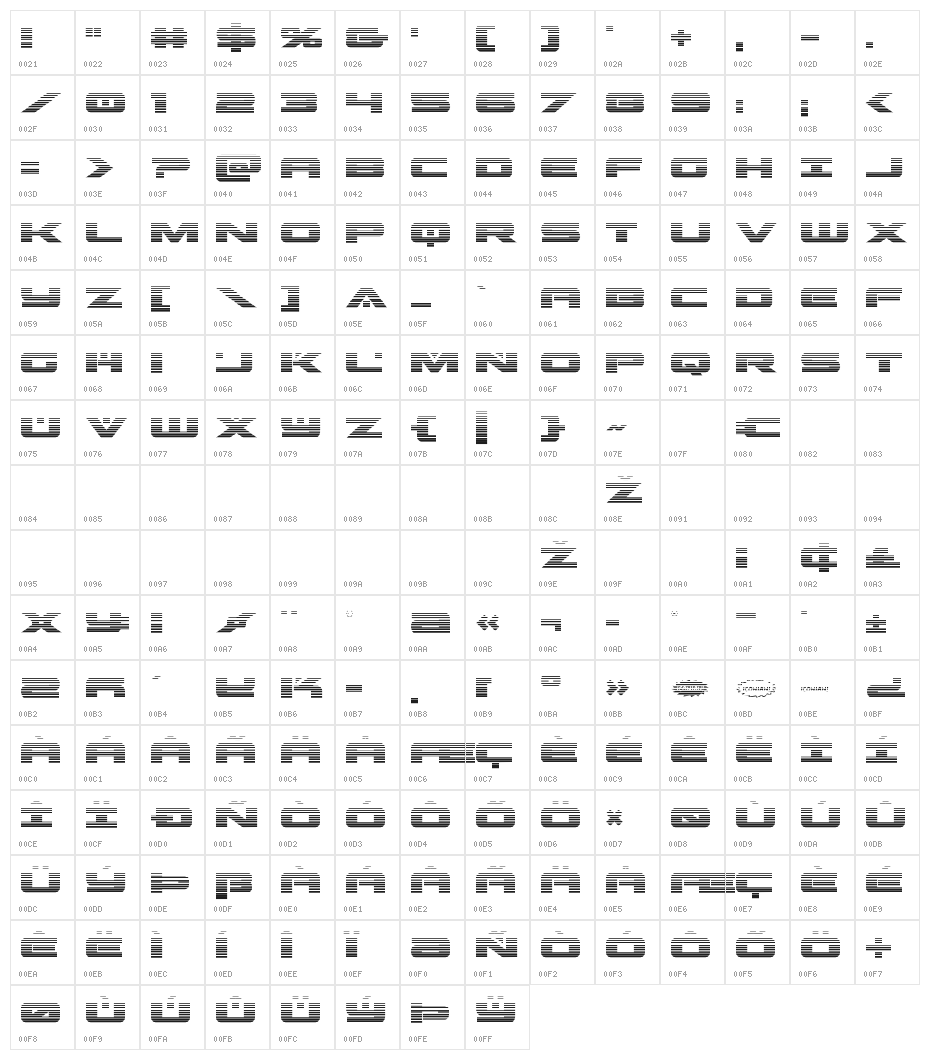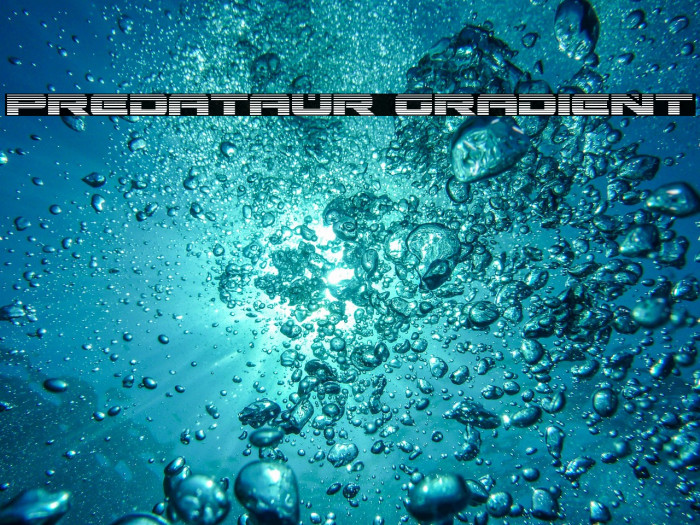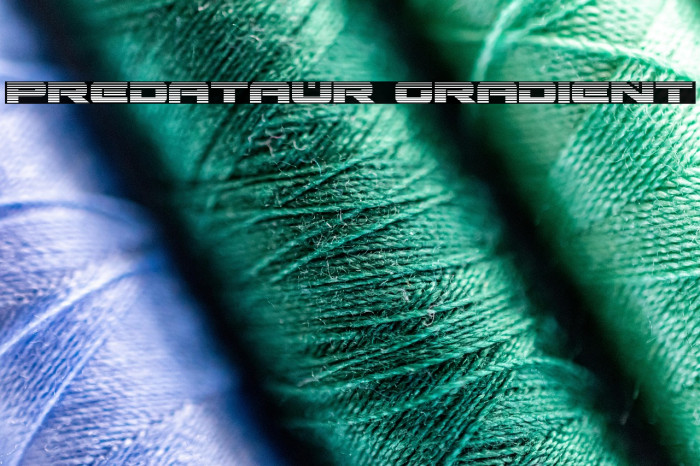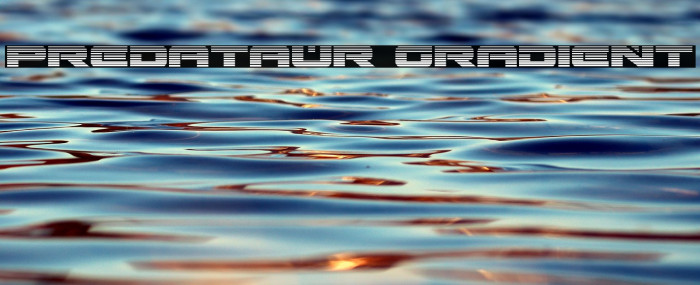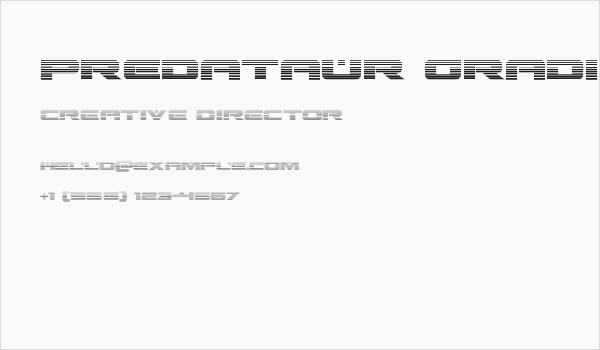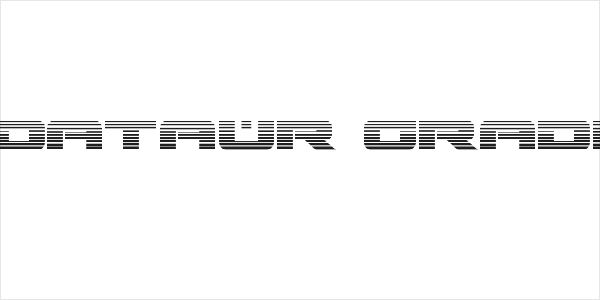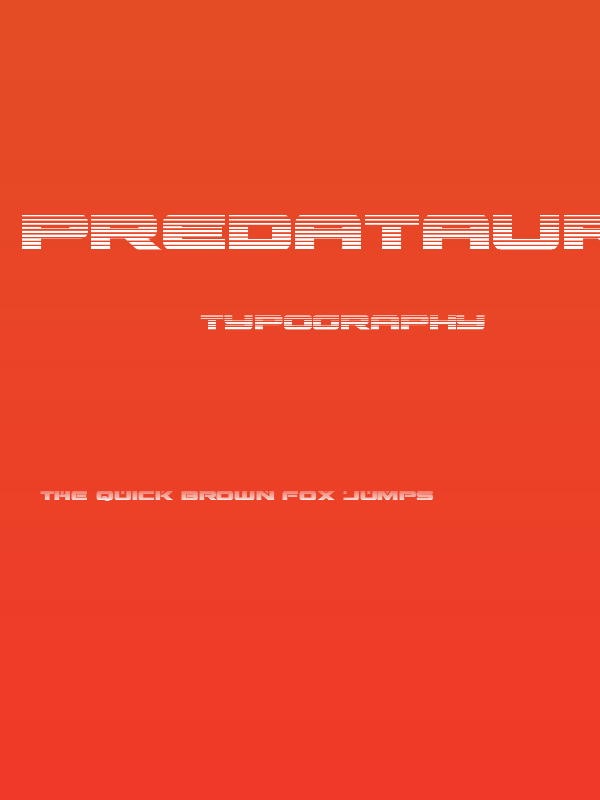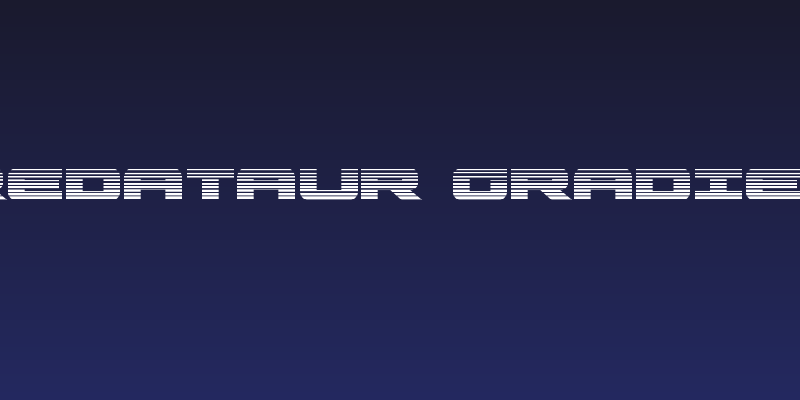
This font features a futuristic and bold design with a unique gradient stripe pattern across each character. The uppercase and lowercase letters maintain a consistent style, emphasizing horizontal lines that create a sense of movement and modernity. The numerals and special characters follow the same design principles, ensuring uniformity across all elements. The font's distinct appearance makes it ideal for projects that require a strong visual impact.
Proposed ProjectsIdeal for sci-fi themed designs, tech branding, video game titles, and futuristic posters.